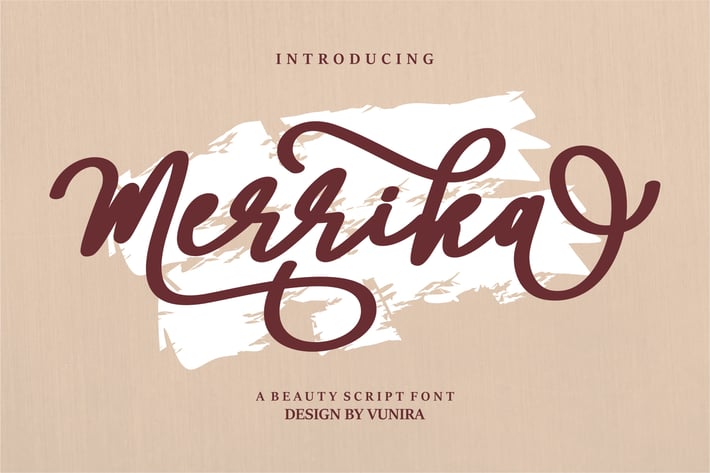
Merrika | A Beauty Script Font
Merrika | A Beauty Script Font with a calligraphy style, So beautiful on invitation like greeting cards, branding materials, business cards, quotes, posters, and more!